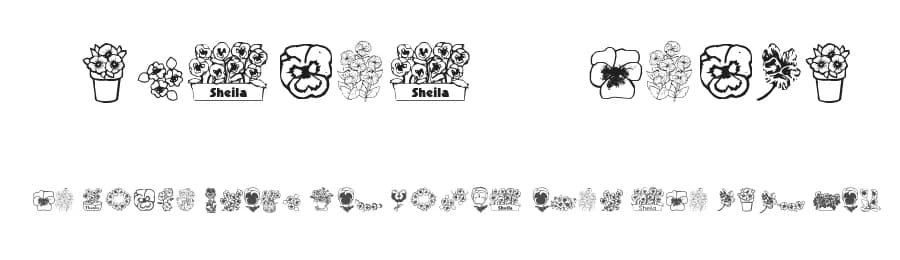
About Pansies 4 Sheila Font
Pansies 4 Sheila is a dingbat font designed by Iacy. It includes 653 glyphs, a regular weight, TTF (TrueType) format, and 292 languages. Pansies 4 Sheila is free to download; check the license details on this page before commercial use. Dingbat fonts like Pansies 4 Sheila work best for icons, ornaments, bullet points, and decorative accents.
Pansies 4 Sheila Font is a versatile dingbats font that works for both headings and body text. Pair it with a contrasting sans-serif or serif font to add visual interest and a clear distinction between titles and body copy.
Pansies 4 Sheila Font
by Iacy
Pansies 4 Sheila Font is a dingbats typeface by Iacy, ideal for logos, invitations, branding, and creative projects.